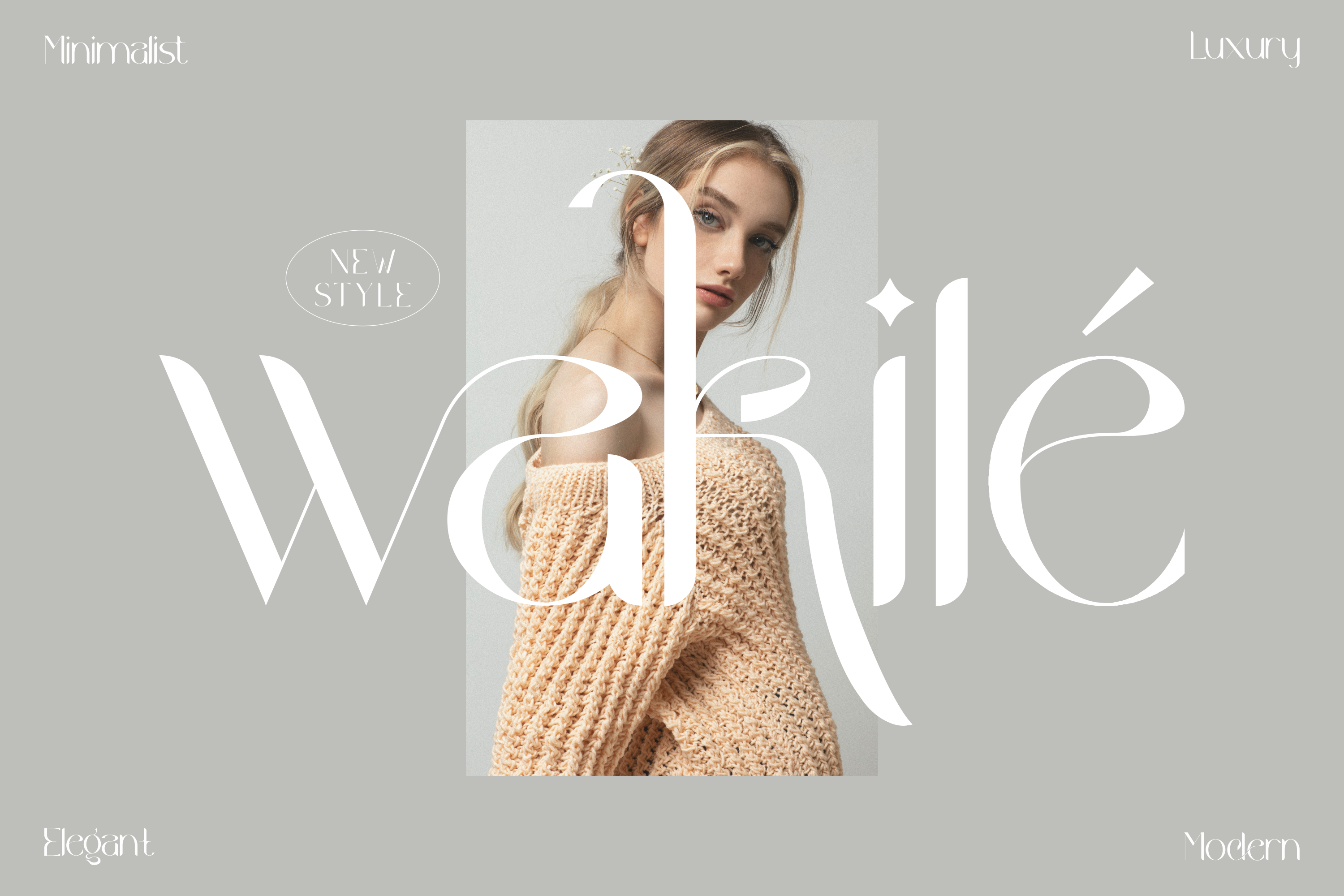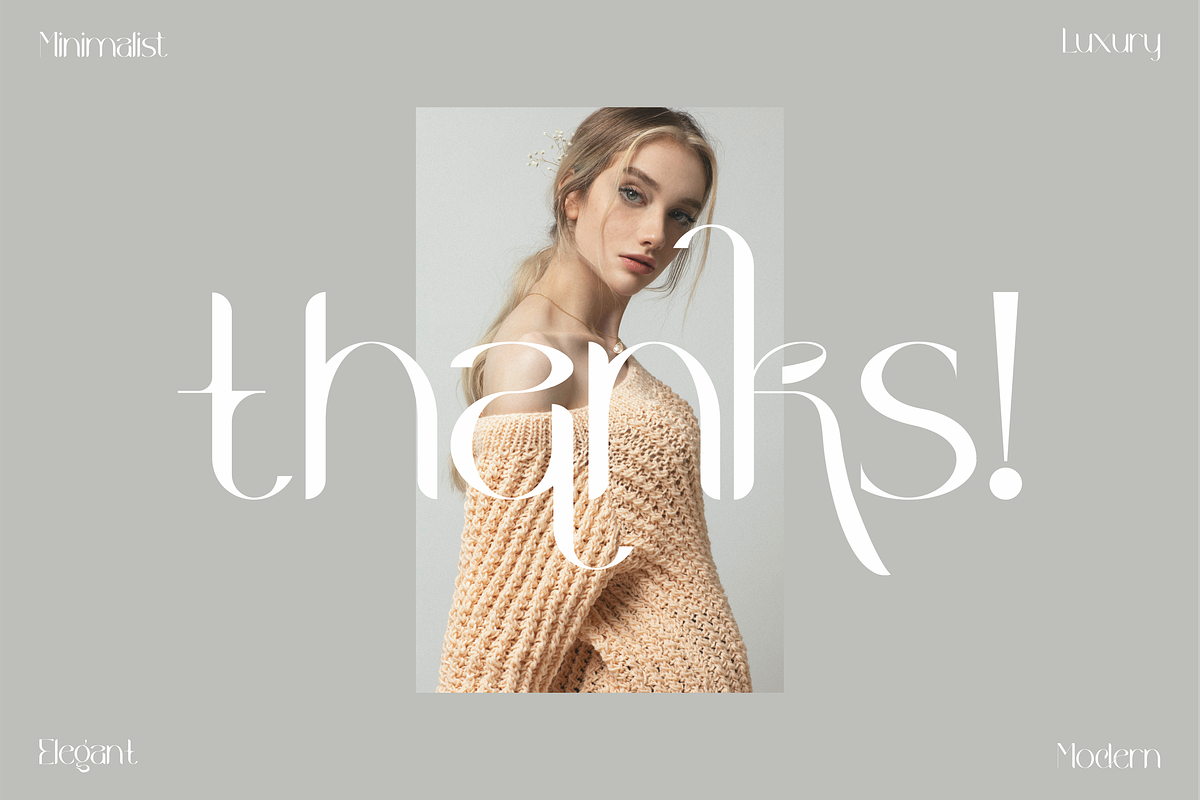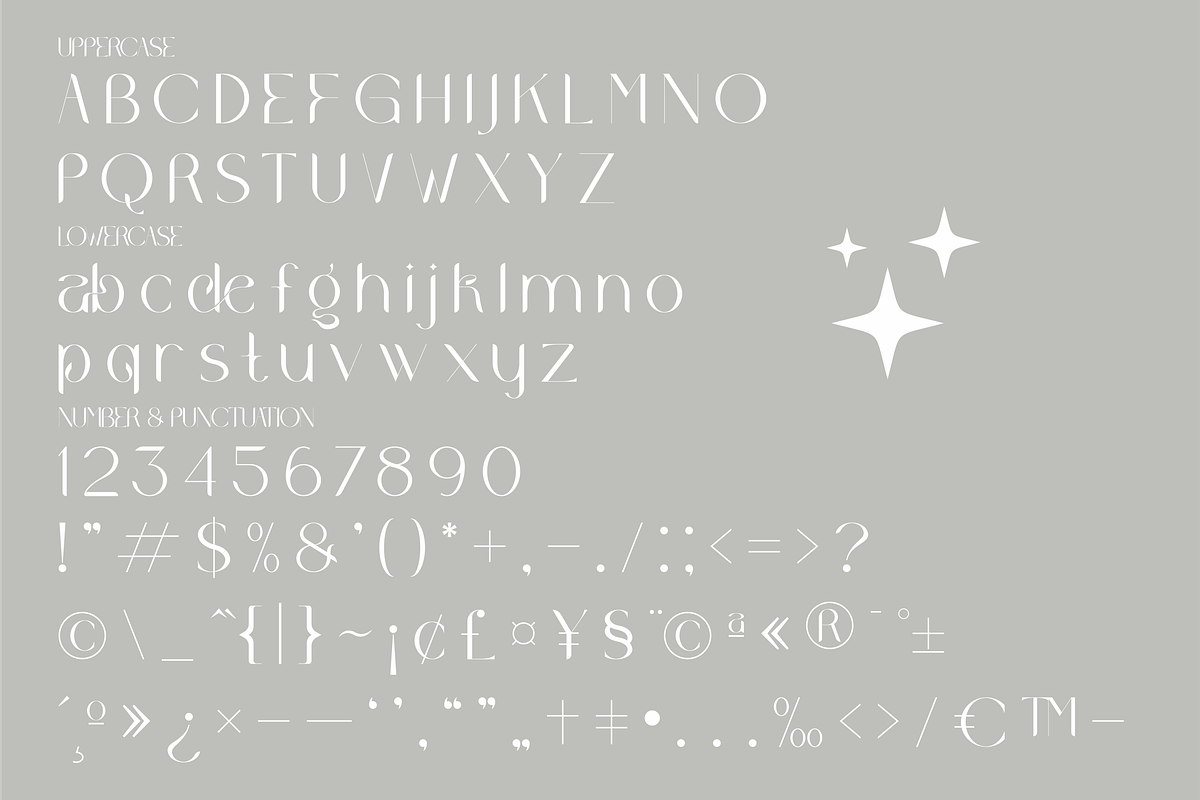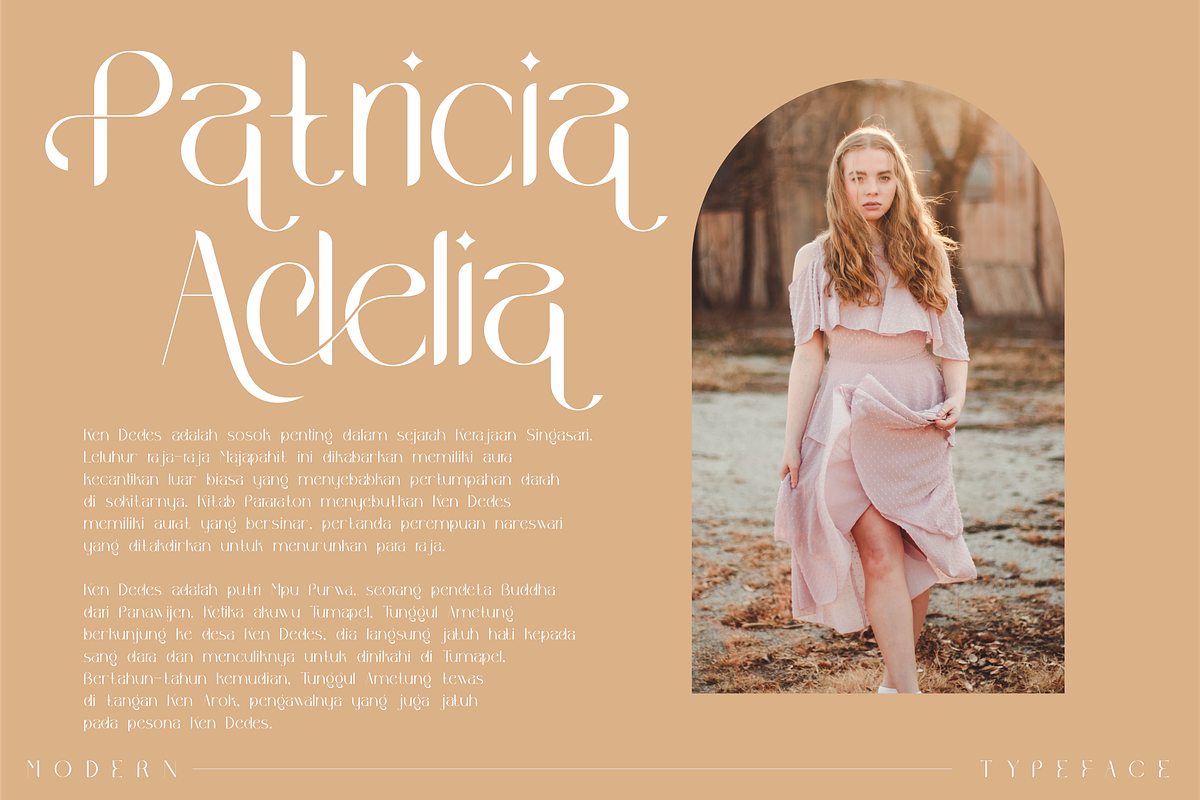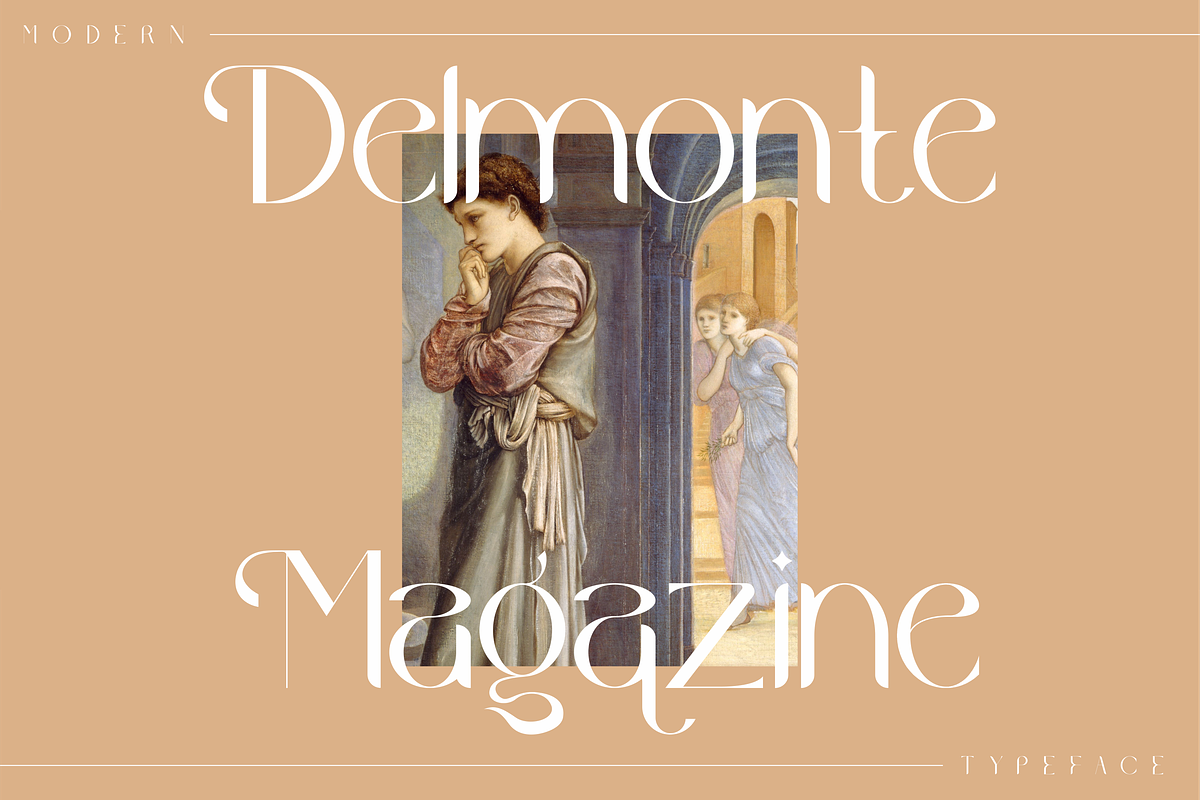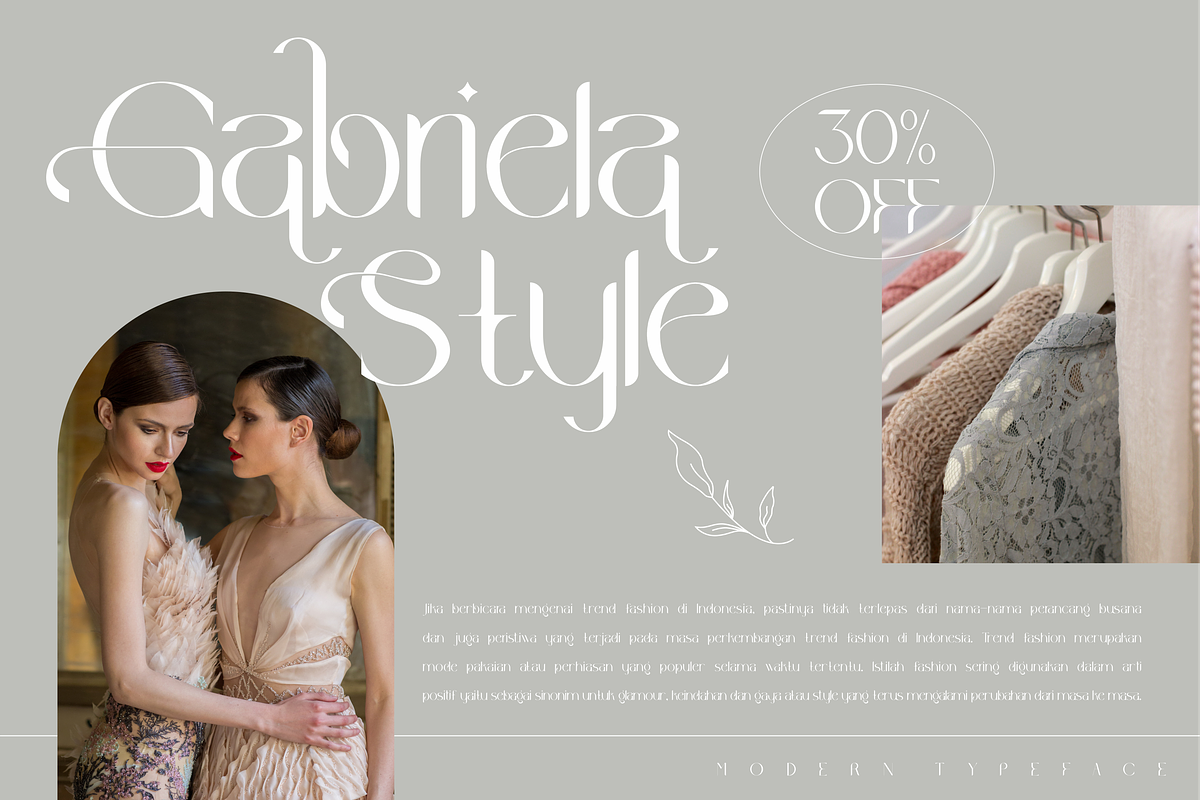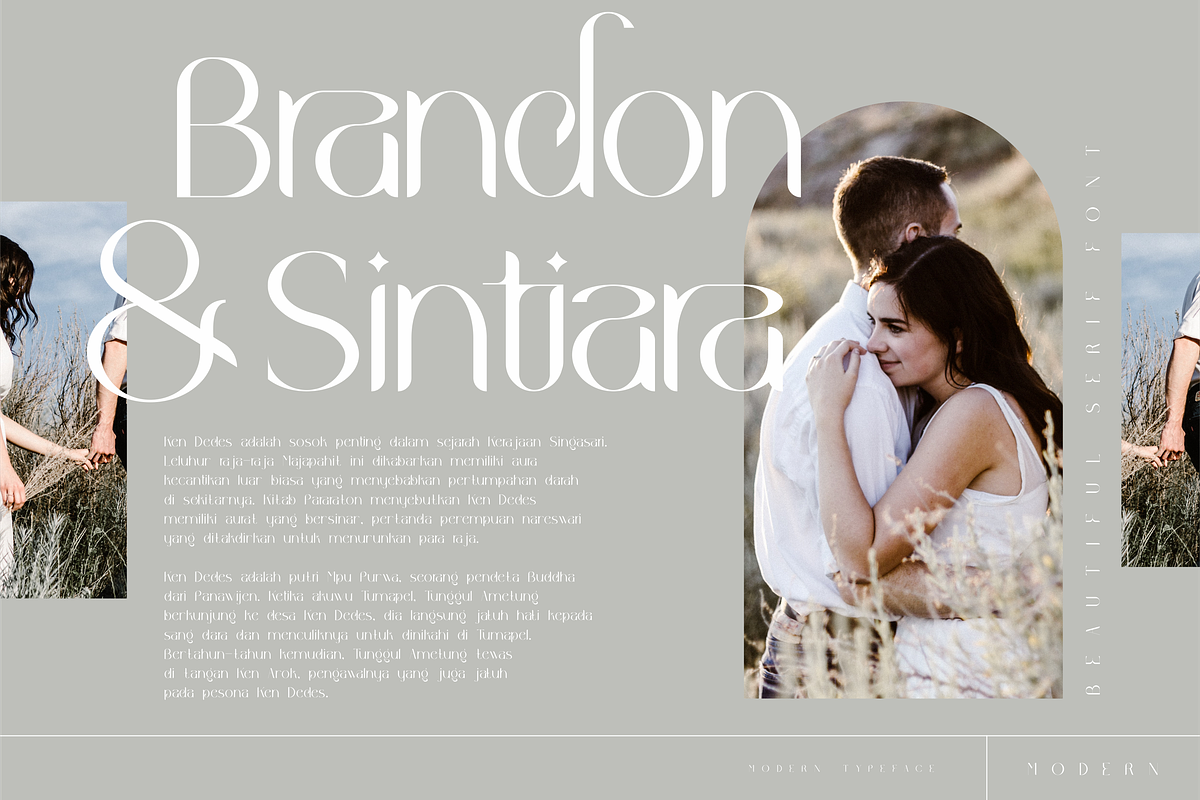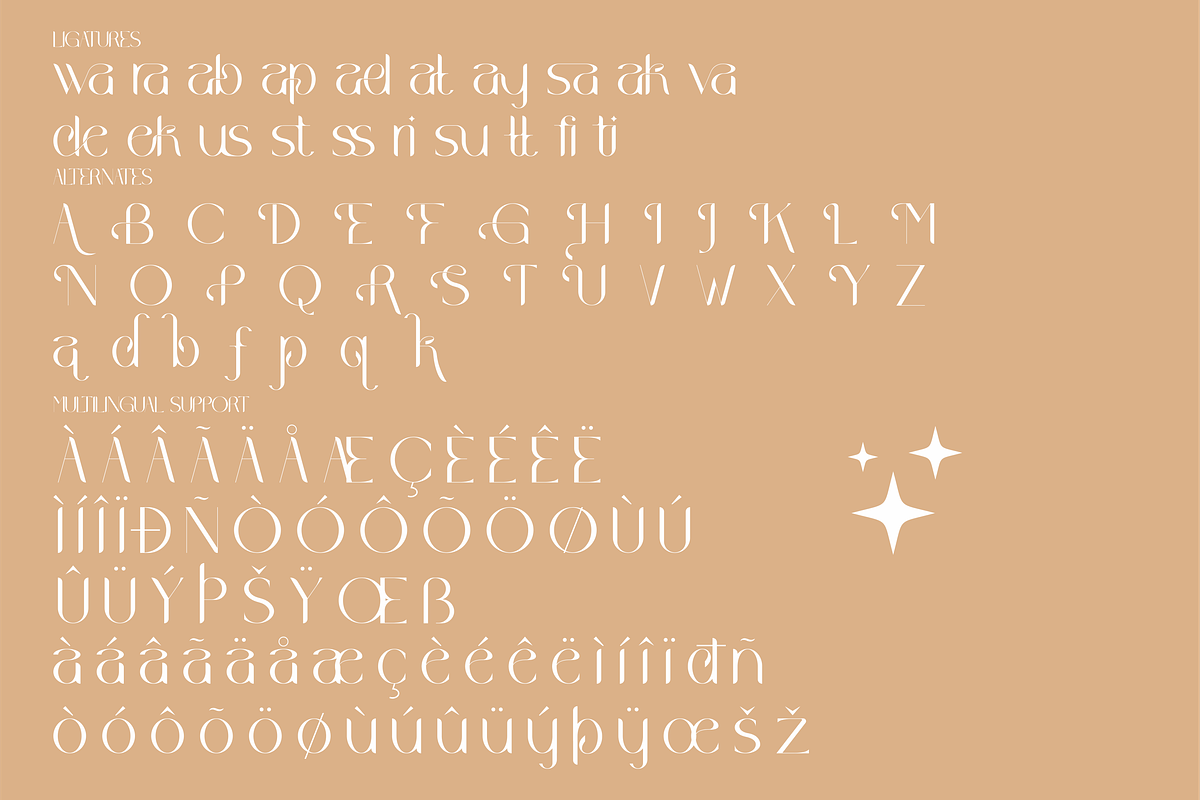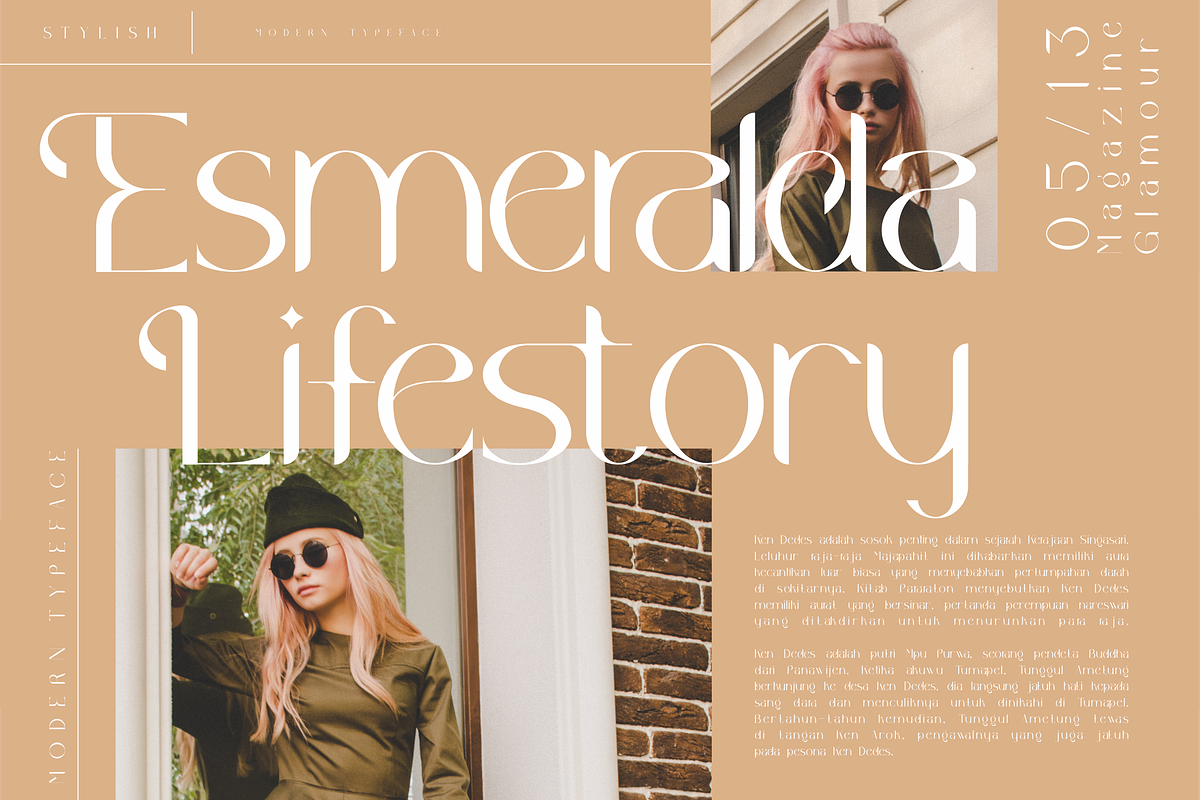
Wakile Stylish Serif Font
Proudly present Wakile Typeface, created by Storytype, A serif modern and classic typeface that has own unique style & modern look. This typeface is perfect for an elegant & luxury logo, book or movie title design, fashion brand, magazine, clothes, lettering, quotes, and so much more.